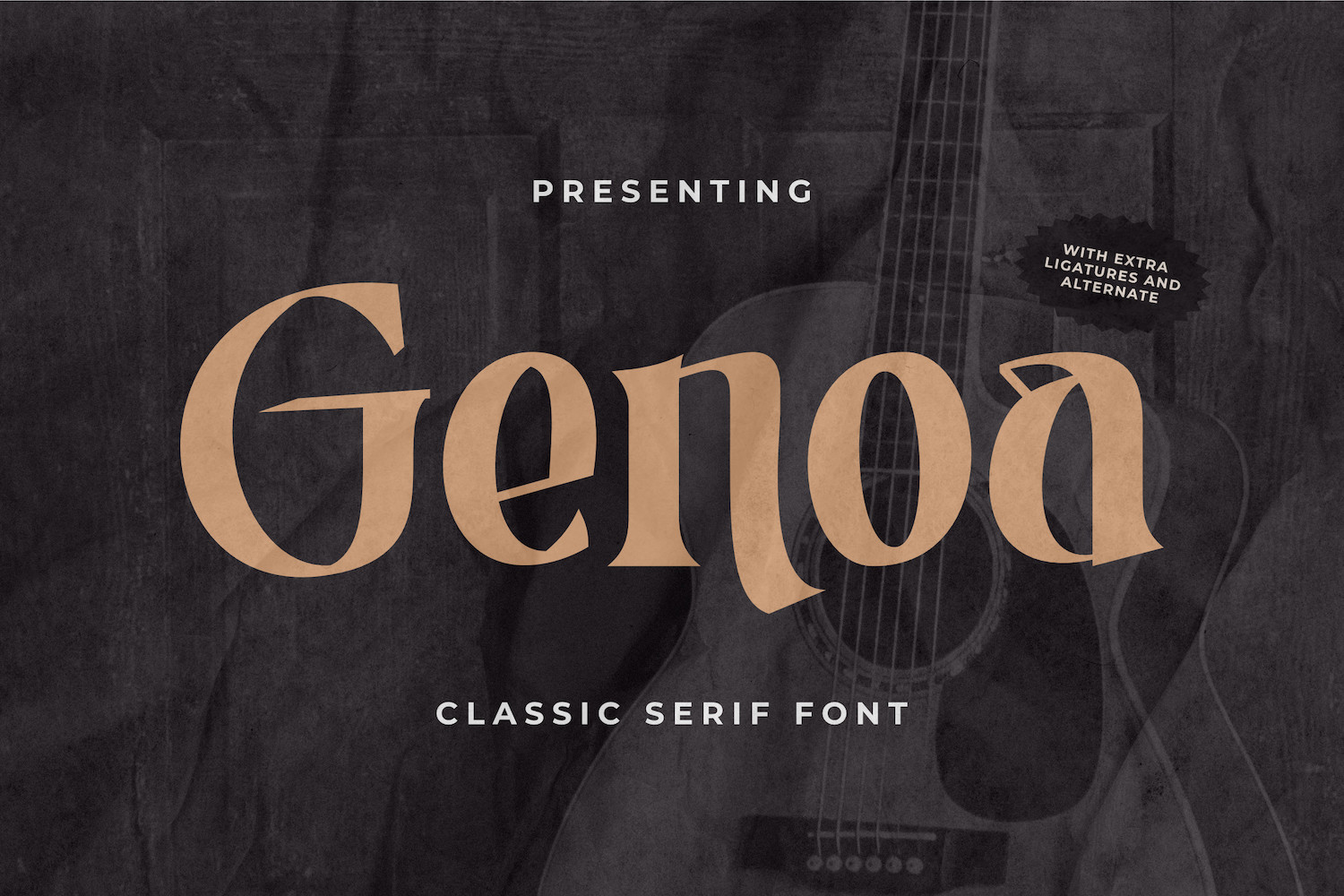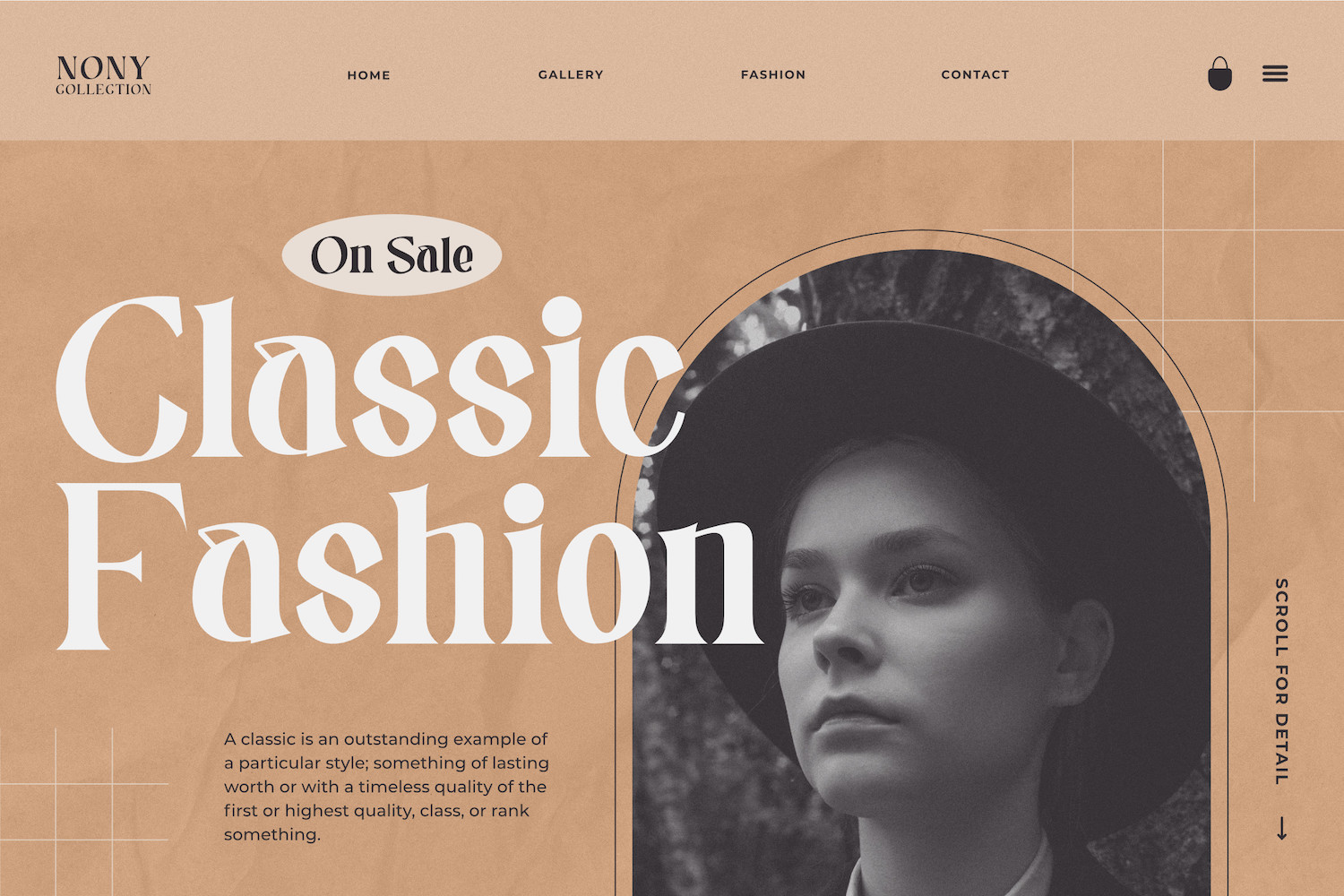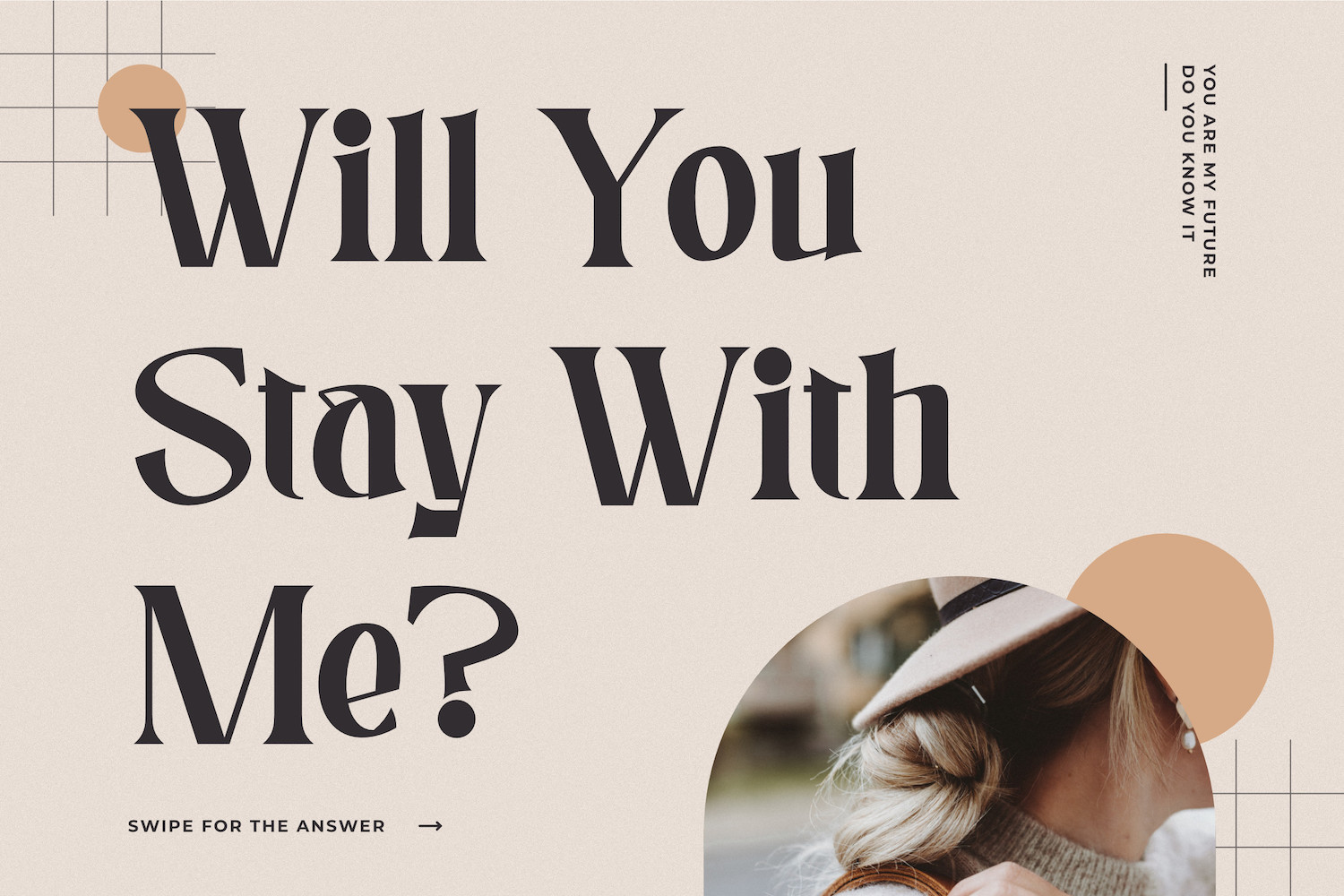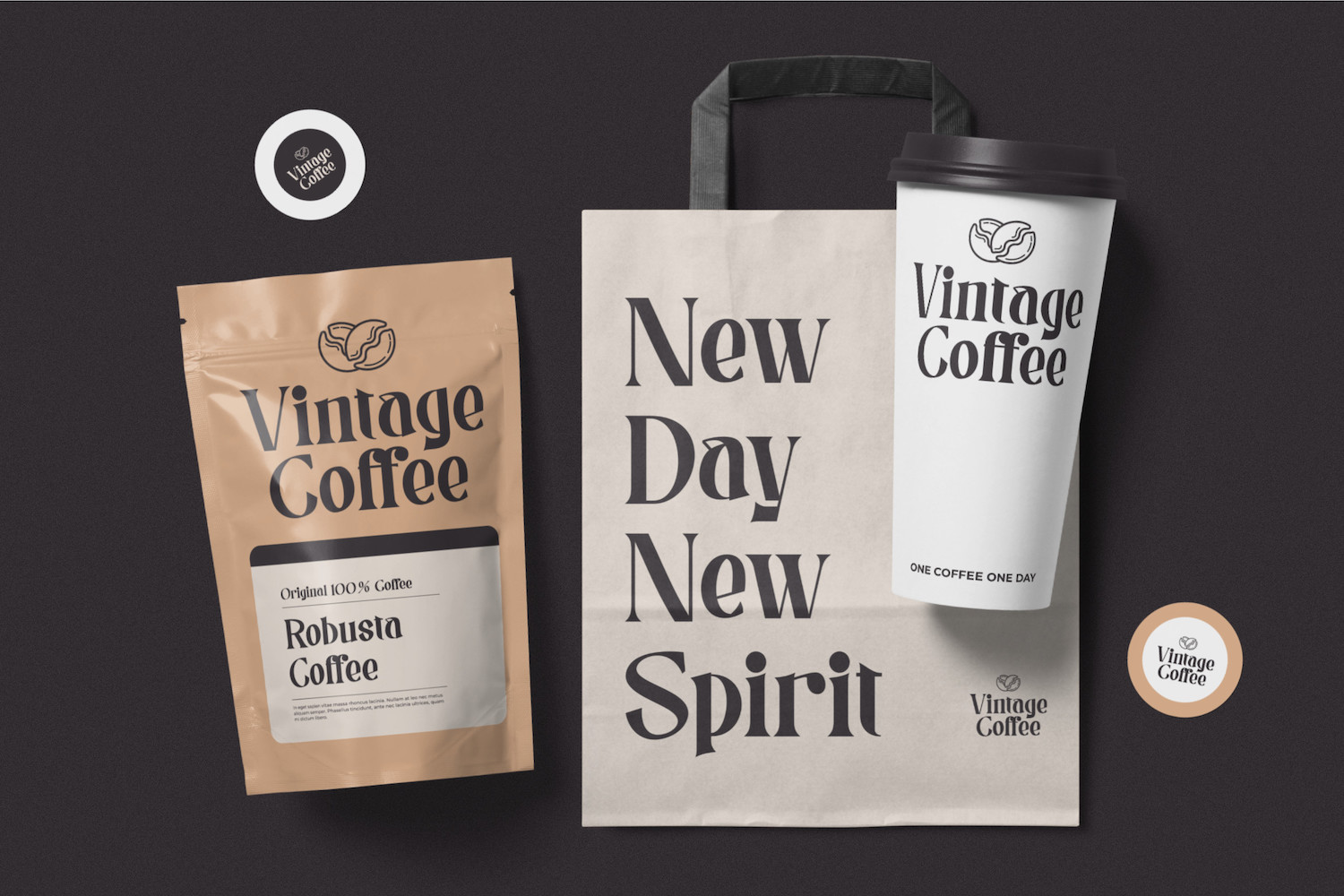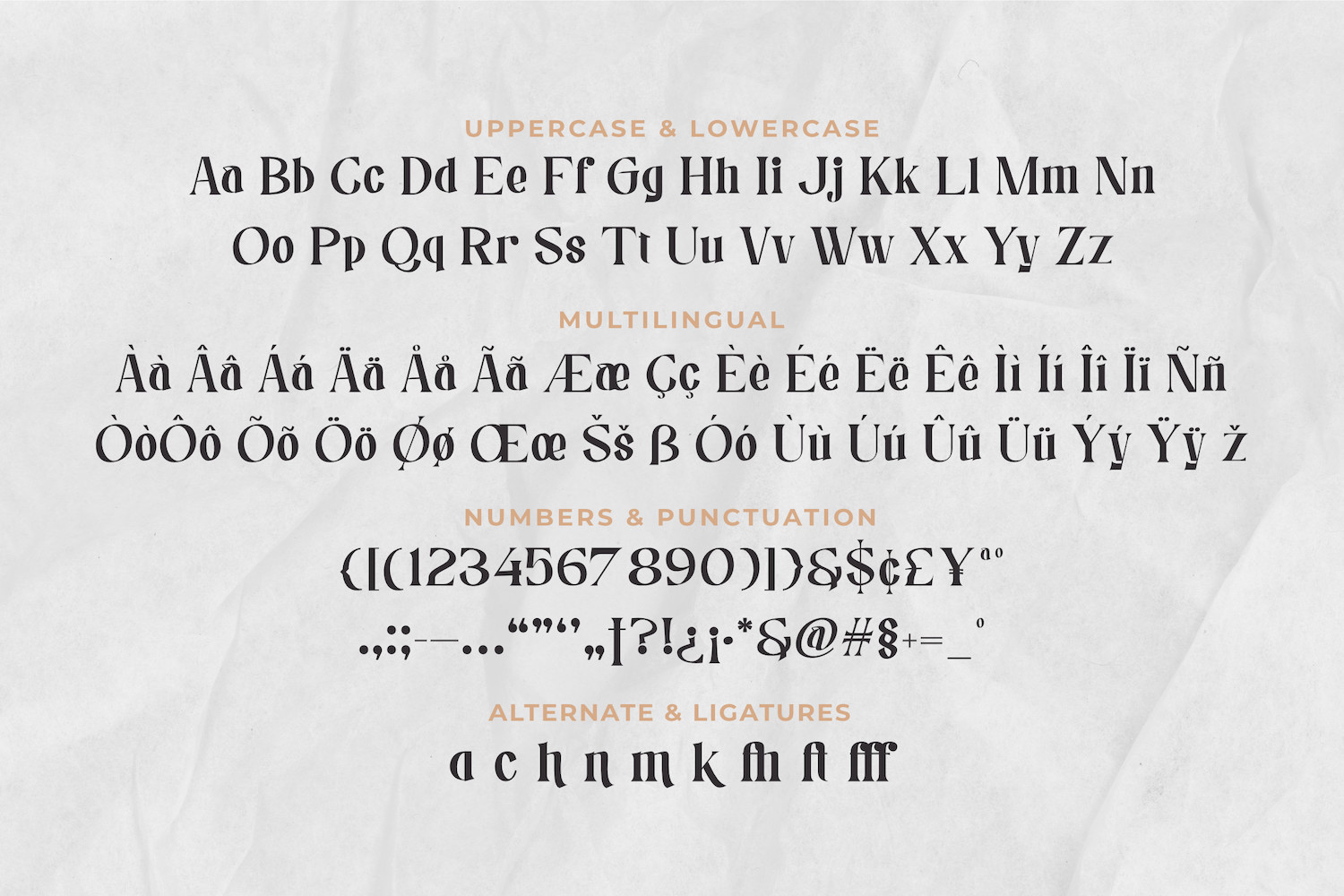
Genoa
Genoa is a classic serif font that blends timeless elegance with contemporary flair. Featuring strong, angular strokes and subtle curvature, Genoa delivers both authority and sophistication, making it an excellent choice for fashion branding, editorial layouts, vintage logos, and boutique packaging. The font includes unique ligatures and stylish alternates to add character and versatility to any project.
This typeface supports multilingual characters and offers complete punctuation, numbers, and stylish alternate forms. Whether you’re designing luxury branding or minimalist posters, Genoa adapts seamlessly to elevate your design narrative with class and grace.